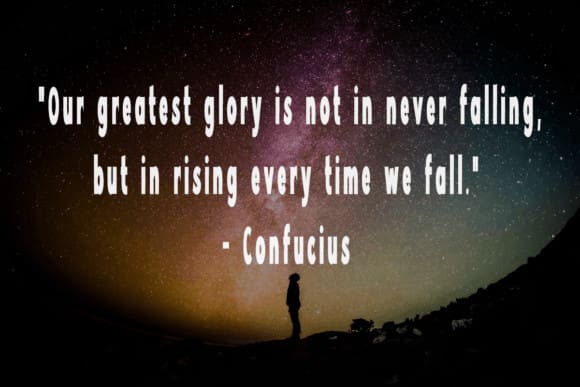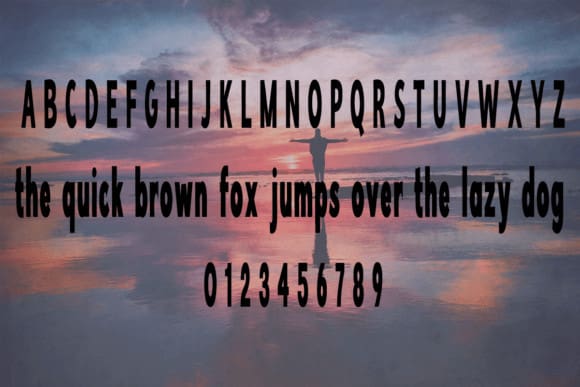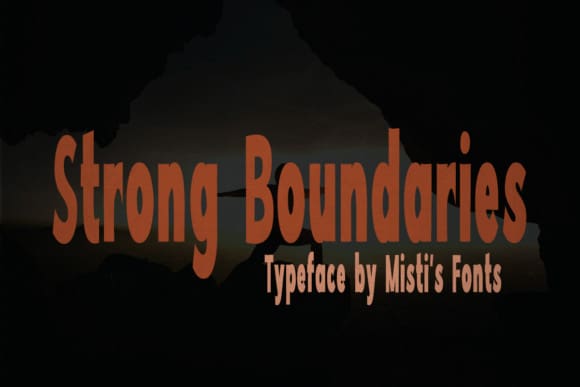
Strong Boundaries Font
Strong Boundaries Font, a bold and condensed sans serif typeface designed to make a powerful statement. This font exudes strength and precision, perfect for projects that demand attention and clarity. Its tight letter spacing and robust line weight create a striking presence, ensuring your text stands out in any context.